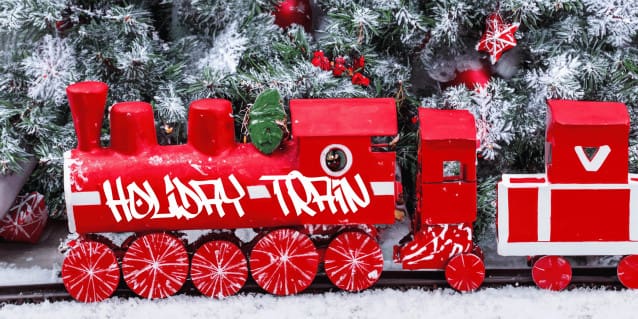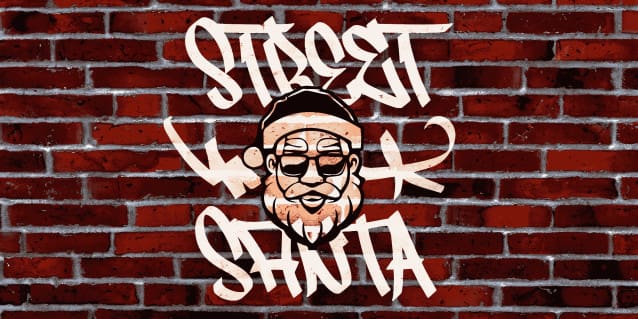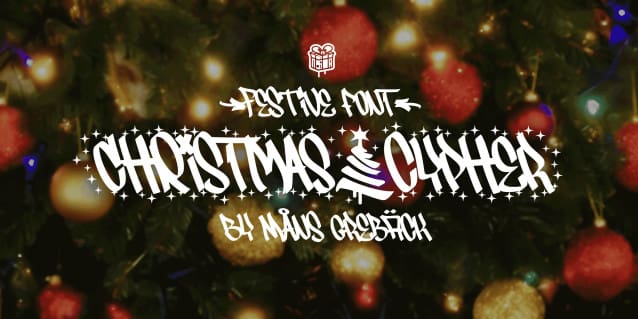
Christmas Cypher Font
Christmas Cypher Font is a street Xmas font. This graffiti-inspired font embodies a dash of urban flair, with calligraphic strokes infused with a sparkling twist of Christmas elements.
Use the included Icon font to make Christmas symbols such as stars, Santas, gifts and reindeers.
Use parenthesis symbols () [] {} to make stars around any word.
Example: {Hiphop}Style